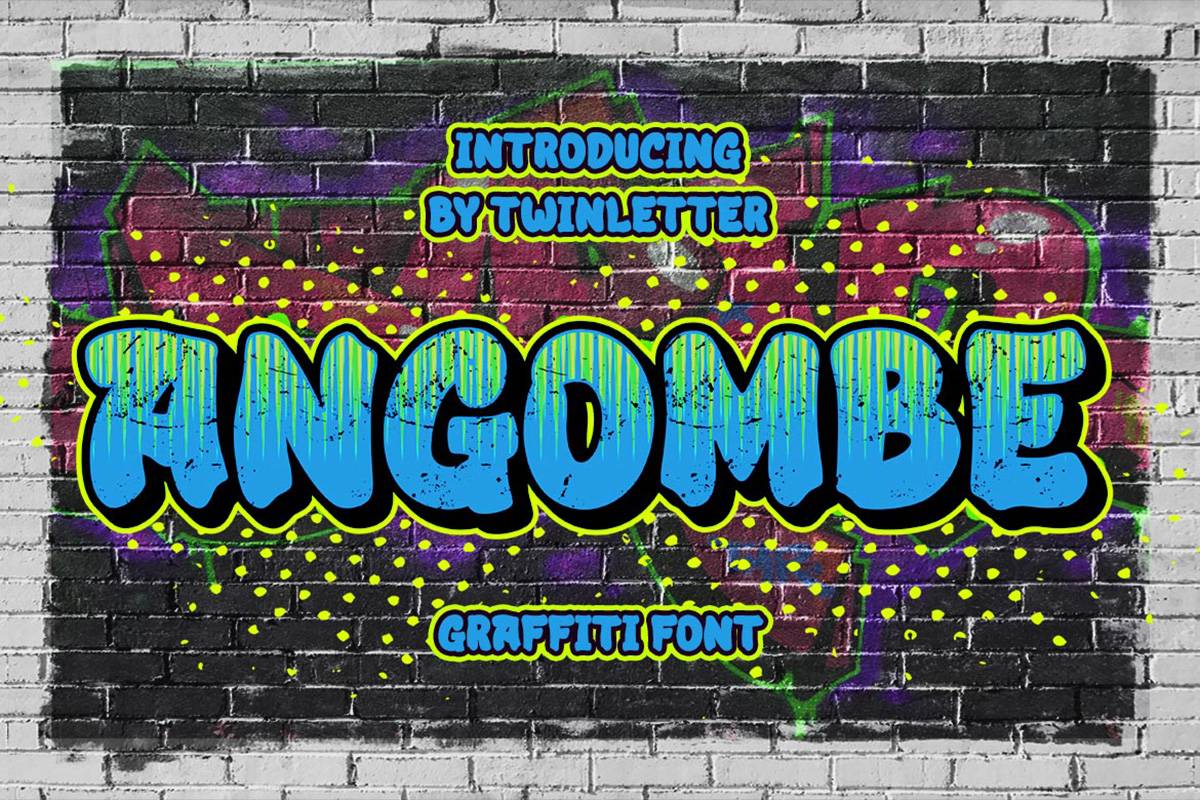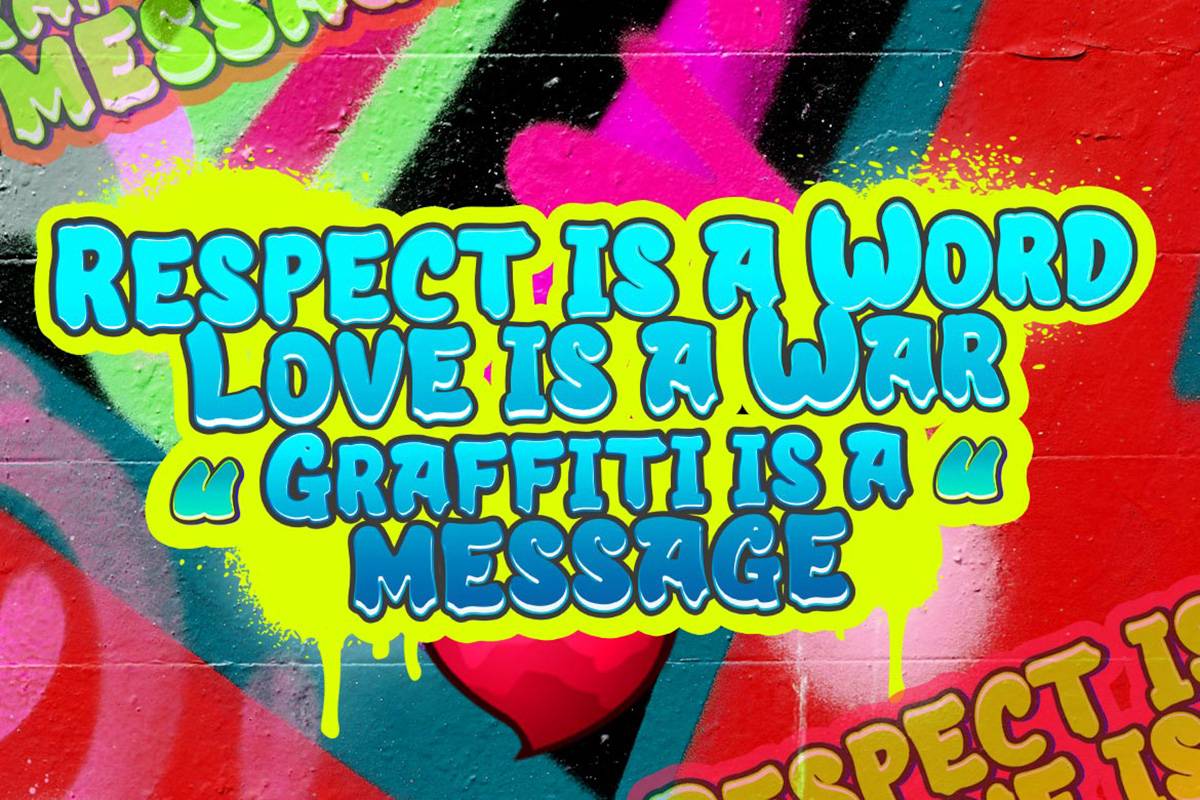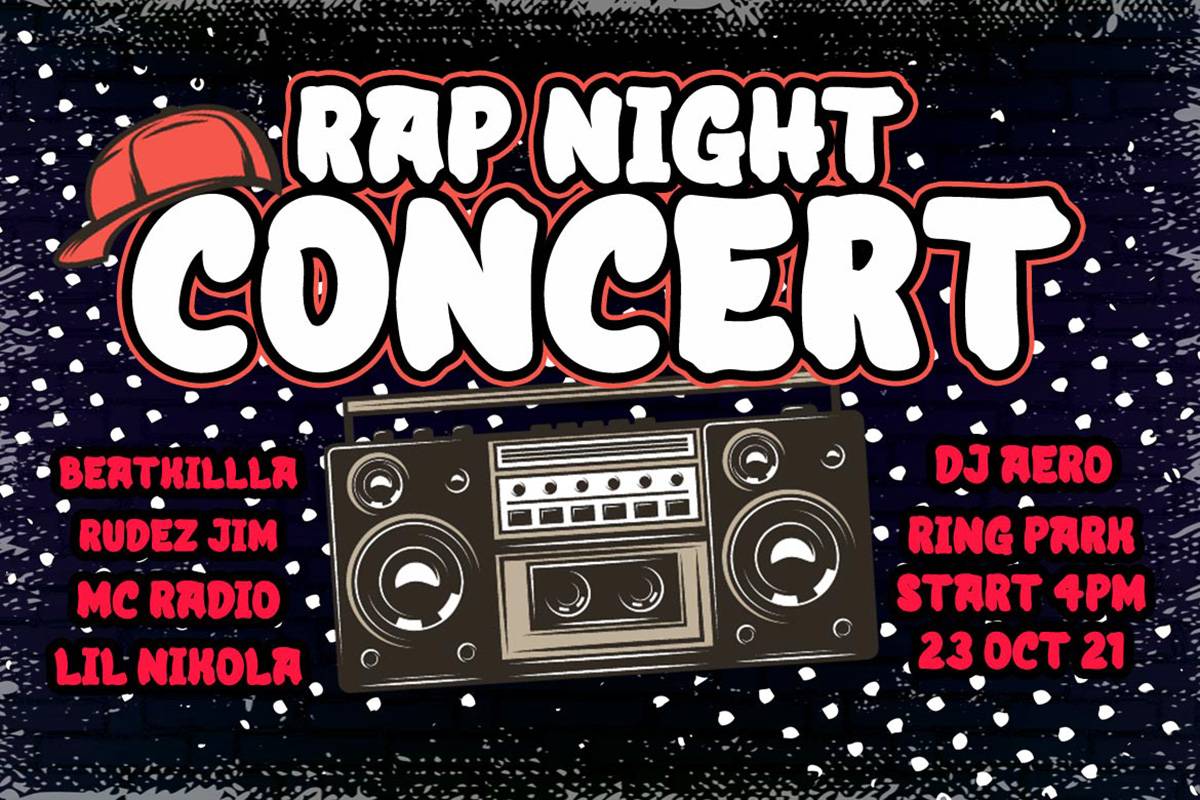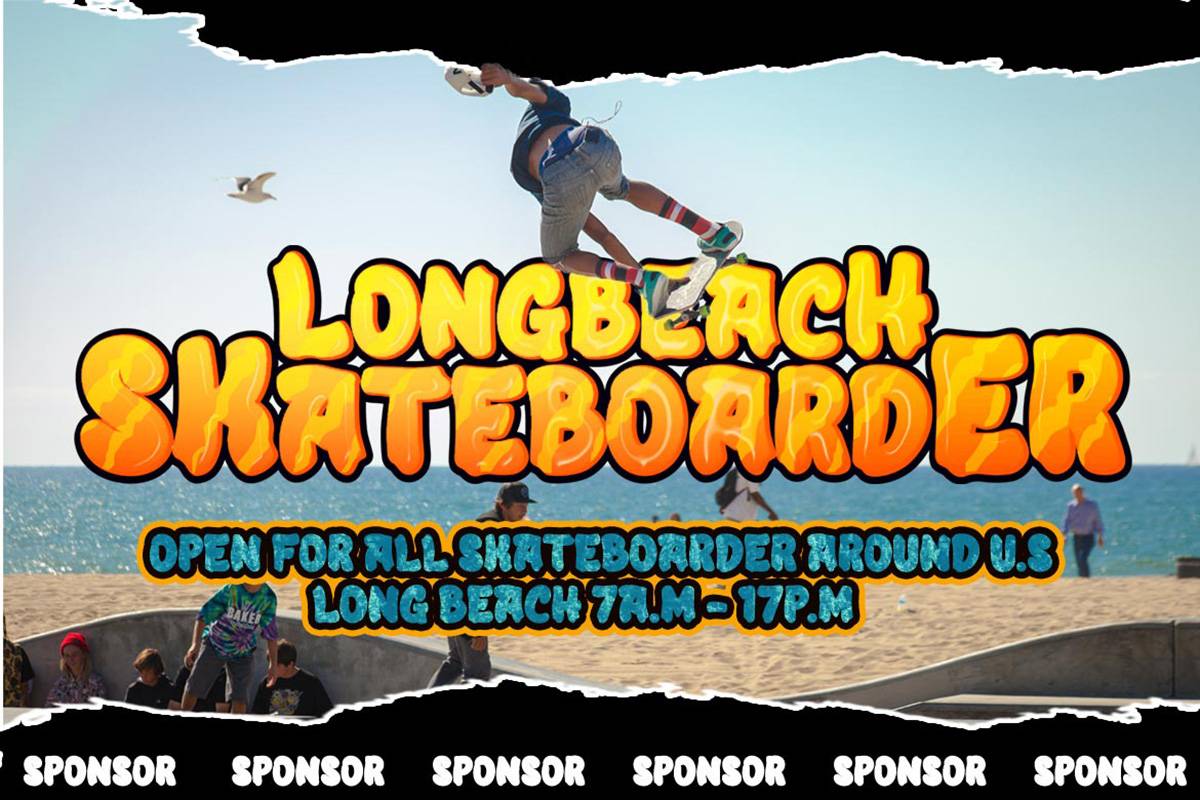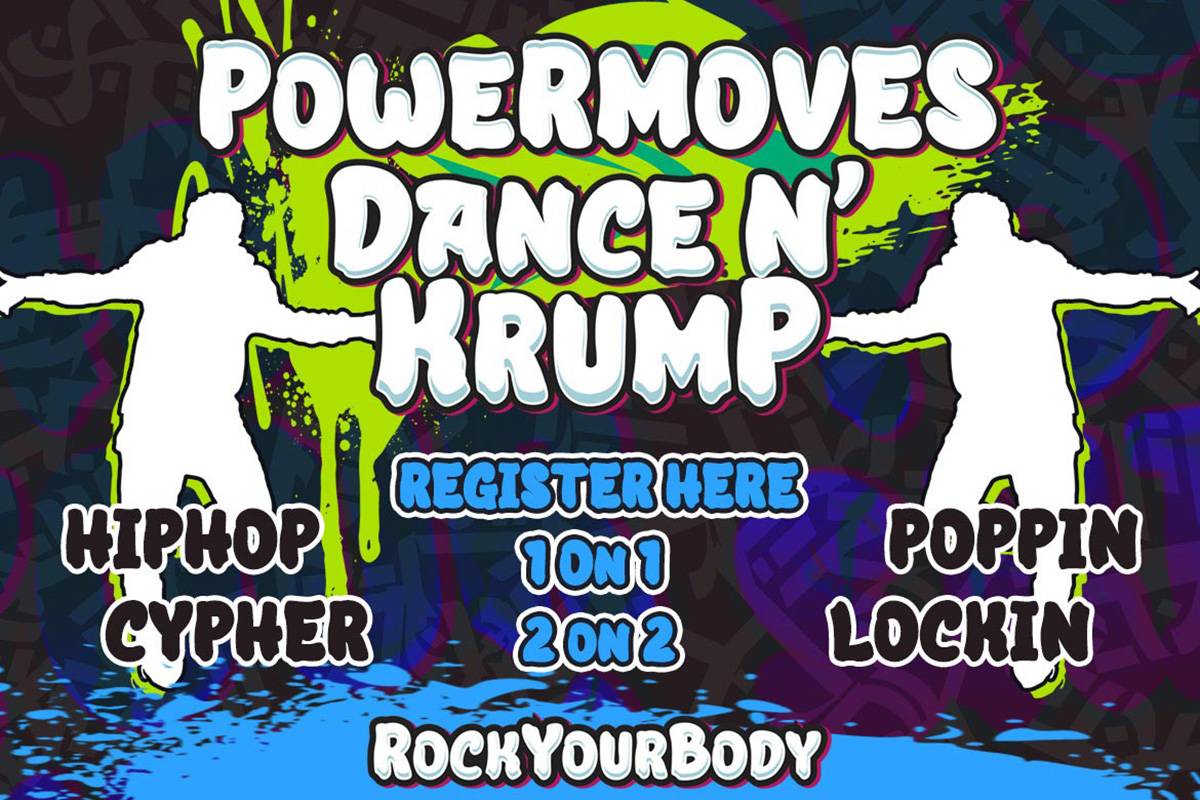
Angombe is a bold, playful sans serif font with a chunky, rounded style that gives it a fun and friendly personality. Its heavy weight and tight spacing make it perfect for eye-catching headlines, logos, and designs that need a casual, approachable look. This font works great in creative branding, posters, and any project aiming for a lively, informal vibe.
Angombe Font
About Angombe Font